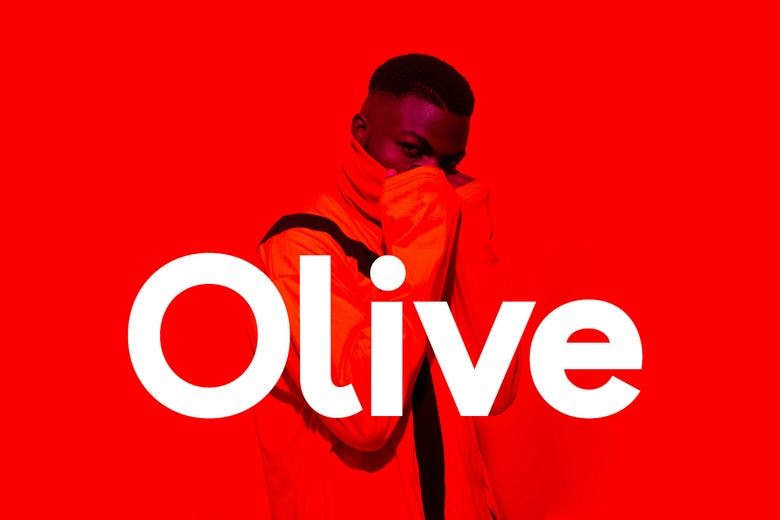
Olive Sans Font
Olive is a Unique Modern sans serif typeface. It is a multpurpose font that is good in big and small fonts. Olive Font would fit ideal as a branding, logo, headlines, Captions or even just a fashionable text overlay to any background picture. Well developed capitals and free flowing and open lower case can be used in any number of ways. It has been presented to be clean, minimalist, warm, quirky, but still made to be versatile and easy to read.
Olive Sans Serif Font